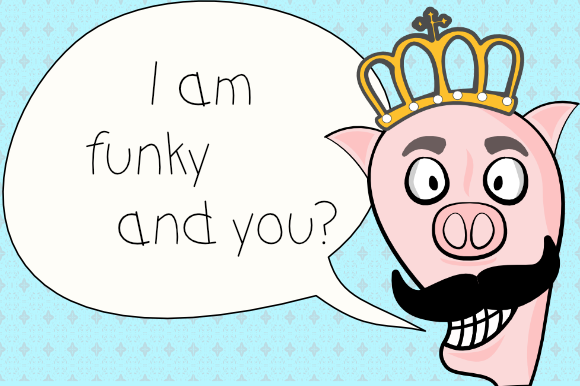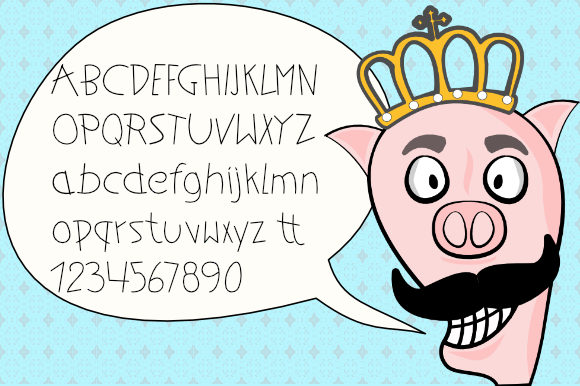
Funkyman Font: Unleash Your Creativity with this Quirky and Charming Typeface
Are you tired of using the same old fonts in your design projects? Do you want to add a touch of personality and whimsy to your creations? Look no further than Funkyman Font, a weird and kooky typeface that’s sure to turn any design project into a standout. With its twisted, special charm, Funkyman Font is the perfect choice for designers and crafters who want to add a little excitement to their work.
The Story Behind Funkyman Font
Funkyman Font is a unique and eye-catching typeface that’s been designed to bring a smile to your face. Its quirky and offbeat style is perfect for designers who want to add a touch of humor and personality to their work. Whether you’re creating a logo, a poster, or a social media graphic, Funkyman Font is sure to make your design stand out from the crowd.
What Makes Funkyman Font So Special?
So, what sets Funkyman Font apart from other typefaces? Here are just a few things that make it so special:
- Unique and quirky design: Funkyman Font has a twisted, special charm that’s unlike any other font out there. Its quirky design is sure to add a touch of personality to any design project.
- Highly versatile: Whether you’re creating a logo, a poster, or a social media graphic, Funkyman Font is the perfect choice. Its versatility makes it suitable for a wide range of design projects.
- Easy to read: Despite its quirky design, Funkyman Font is surprisingly easy to read. This makes it perfect for designers who want to add a touch of personality to their work without sacrificing legibility.
How to Use Funkyman Font in Your Design Projects
So, how can you use Funkyman Font in your design projects? Here are a few ideas to get you started:
- Logos and branding: Funkyman Font is perfect for creating unique and eye-catching logos that will help your brand stand out from the crowd.
- Posters and flyers: Add a touch of personality to your posters and flyers with Funkyman Font. Its quirky design is sure to grab attention and make your design stand out.
- Social media graphics: Funkyman Font is perfect for creating social media graphics that will help your brand stand out from the crowd. Use it to create eye-catching Facebook posts, Twitter headers, and Instagram graphics.
Tips for Getting the Most Out of Funkyman Font
Here are a few tips for getting the most out of Funkyman Font:
- Experiment with different colors: Funkyman Font looks great in a wide range of colors. Experiment with different colors to find the perfect combination for your design project.
- Use it sparingly: While Funkyman Font is a great font, it can be overwhelming if used too much. Use it sparingly to add a touch of personality to your design project.
- Pair it with other fonts: Funkyman Font looks great when paired with other fonts. Experiment with different font combinations to find the perfect pairing for your design project.
In conclusion, Funkyman Font is a weird and kooky typeface that’s sure to turn any design project into a standout. Its unique and quirky design, versatility, and ease of readability make it the perfect choice for designers and crafters who want to add a touch of personality to their work. Whether you’re creating a logo, a poster, or a social media graphic, Funkyman Font is the perfect choice. So why not give it a try and see how it can add a touch of excitement to your design projects?